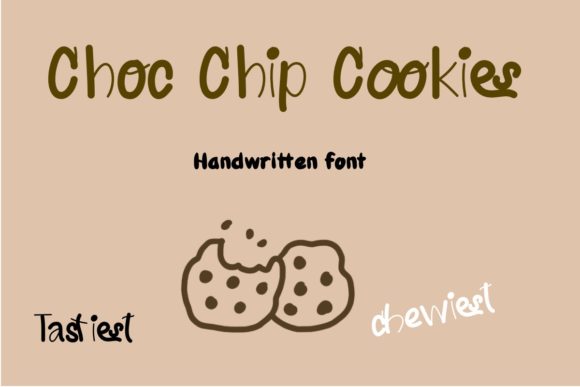
Choc Chip Cookies: A Sweet Script for Creative Projects
If you are searching for a Choc Chip Cookies free download, you have likely stumbled upon one of the most charming additions to the digital type library in recent years. This font is not just another generic script; it is a carefully crafted piece of typography that brings warmth and personality to any design project. Whether you are looking to download Choc Chip Cookies font free for a personal blog or need a unique touch for client work, this Script Handwritten typeface offers a versatile solution. The Choc Chip Cookies font download process is straightforward, but understanding its specific aesthetic value is what separates a good design from a great one.
In the crowded market of professional Fonts, finding a free Script Handwritten font for Fonts enthusiasts that balances readability with artistic flair can be challenging. Choc Chip Cookies stands out because it mimics the natural flow of handwriting without sacrificing legibility. It feels organic, friendly, and inviting, making it an excellent choice for designers who want to add a human touch to their digital or print layouts. By exploring the best Script Handwritten fonts for use case scenarios, we can see why this particular typeface has gained such a dedicated following among creative professionals.
Design & Style Analysis
The visual identity of Choc Chip Cookies is defined by its playful yet polished character. Unlike many brush scripts that can feel messy or inconsistent, this font maintains a steady rhythm while still feeling hand-drawn. It captures the essence of a quick, joyful sketch, which is why it is often categorized as a premium Script Handwritten font despite being available for free. Let us break down the specific design elements that make it so effective.
Natural Letterforms and Flow
The letterforms in Choc Chip Cookies are designed with a slight upward slant, which gives the text a sense of movement and optimism. The curves are soft and rounded, avoiding harsh angles that might clash with delicate imagery. When you examine the Choc Chip Cookies vs similar font comparisons, you will notice that this typeface avoids the overly ornate swashes found in traditional calligraphy. Instead, it opts for a cleaner, more modern approach that fits seamlessly into contemporary design trends. This makes it incredibly fitting to a large pool of designs, from casual social media posts to elegant wedding stationery.
Weight and Spacing
One of the strongest aspects of this font is its balanced weight. It is bold enough to serve as a headline but light enough to remain readable when used in smaller sizes. The spacing between characters is generous, preventing the letters from clumping together—a common issue with other Script Handwritten styles. This open structure ensures that the text breathes well, whether it is set against a busy background or placed on a clean white canvas. For designers seeking a font bundle or font pack, the versatility of this weight makes it a reliable companion to more rigid sans-serif or serif typefaces.
Best Uses for Choc Chip Cookies
Understanding where to apply Choc Chip Cookies is key to maximizing its impact. While it is a free Script Handwritten font, its quality rivals many paid options. Here are some of the best ways to utilize this typeface in your projects.
Choc Chip Cookies for branding
Branding requires a strong visual identity that resonates with the target audience. Choc Chip Cookies is perfect for brands that want to appear approachable, friendly, and authentic. It works exceptionally well for food and beverage companies, artisanal product lines, and lifestyle blogs. The sweet, cookie-inspired name alone evokes comfort and nostalgia, which can help build an emotional connection with consumers. If you are looking for Choc Chip Cookies for branding, consider using it for logo accents or taglines rather than long blocks of text.
Choc Chip Cookies for wedding invitations/cards/typography
Wedding stationery is one of the most popular applications for script fonts. Choc Chip Cookies adds a touch of elegance without being overly formal. It is ideal for Choc Chip Cookies for wedding invitations/cards/typography because it strikes a balance between romance and modernity. Use it for the couple’s names or key details like the date and venue. Pairing it with a simple serif for the body text creates a harmonious and sophisticated look that guests will appreciate.
Choc Chip Cookies for posters/social media/packaging
In the fast-paced world of digital marketing, grabbing attention quickly is essential. Choc Chip Cookies is highly effective for Choc Chip Cookies for posters/social media/packaging due to its eye-catching style. On Instagram or Pinterest, the handwritten style stands out amidst curated feeds. For packaging, it suggests a handmade or small-batch quality, which is a major selling point for craft products. Its adaptability makes it a powerful tool for Choc Chip Cookies for logo design elements as well, especially when combined with minimalist icons.
Font Pairing & Combinations
To get the most out of Choc Chip Cookies, you need to pair it correctly. A common mistake is pairing two script fonts, which can create visual clutter. Instead, focus on contrast. When asking what fonts pair well with Choc Chip Cookies, the answer usually lies in clean, neutral typefaces that let the script shine.
For a classic look, pair Choc Chip Cookies with a sturdy Sans-Serif like Helvetica or Montserrat. The geometric precision of the sans-serif provides a perfect counterpoint to the organic curves of the script. This combination is excellent for Choc Chip Cookies font pairing in modern web design and editorial layouts. Another great option is a refined Serif font, such as Playfair Display or Garamond. This pairing adds a touch of luxury and tradition, making it suitable for high-end branding or formal events. The key is to ensure that the weights of the paired fonts complement each other, creating a balanced hierarchy.
As a final note, always test your typography in real-world conditions. Before committing to Choc Chip Cookies for a large-scale project, print a sample at various sizes to check for readability. Handwritten fonts can sometimes lose detail when scaled down, so ensure the kerning looks good at both headline and body sizes. Additionally, consider the context of your design. While Choc Chip Cookies is versatile, it may not be suitable for serious corporate reports or technical documentation. However, for creative endeavors that require a personal touch, it is an outstanding choice. By following these tips and respecting the licensing terms, you can effectively incorporate this beautiful Script Handwritten font into your next masterpiece.